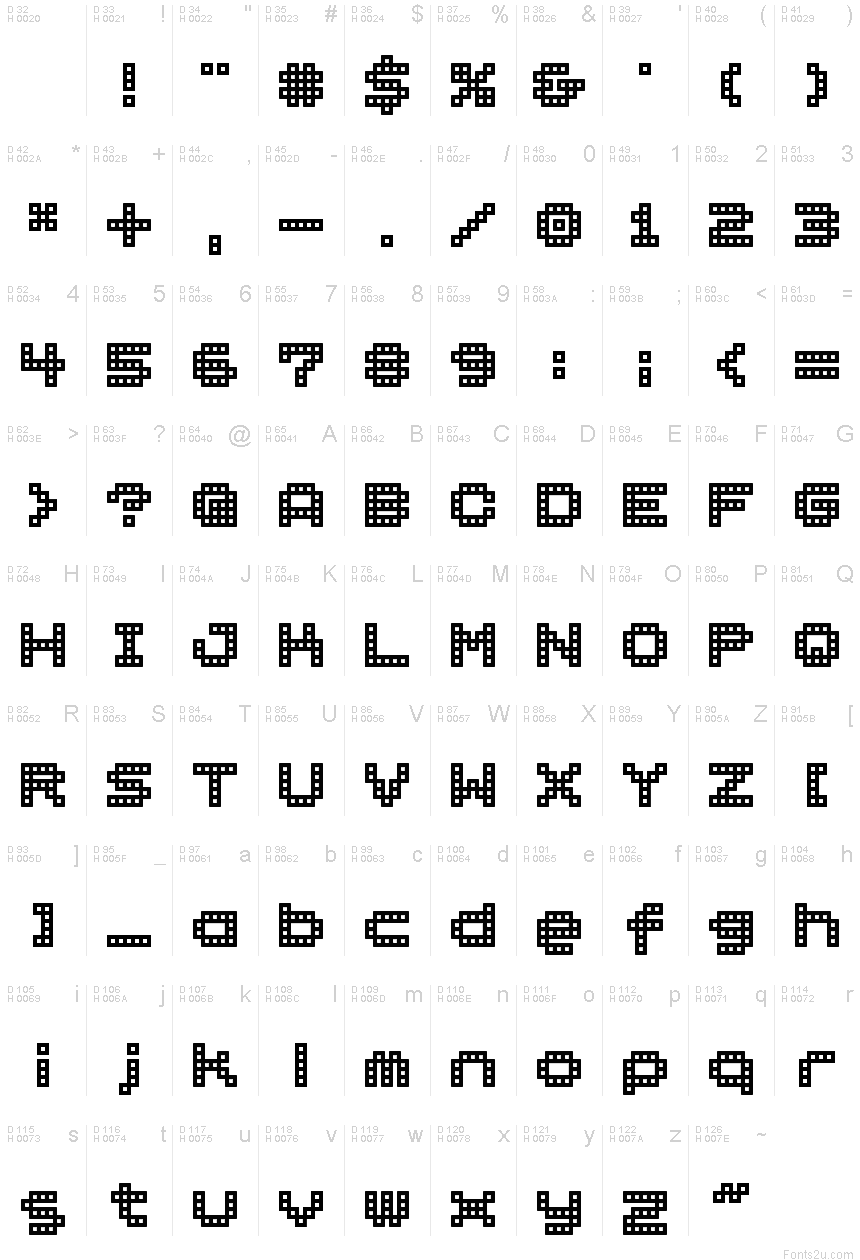
BM block A15
BM block A15 font by BitmapMania / COOZ is a free digital pixel display typeface. Every character is built from tight little square modules, like a stack of glowing windows in a night skyline, giving text a crunchy, low‑res texture straight from early arcade machines. The rigid verticals and boxy counters keep things surprisingly legible, even when letters lock tightly together in dense headlines or logos.
Using BM block A15, you can push retro tech energy into game titles, pixel‑art posters, YouTube or Twitch overlays, electronic music covers, stickers, and event flyers. This free font shines at oversized headings; keep body copy in a simple geometric sans for balance, letting BM block A15 handle the loud, nostalgic moments.